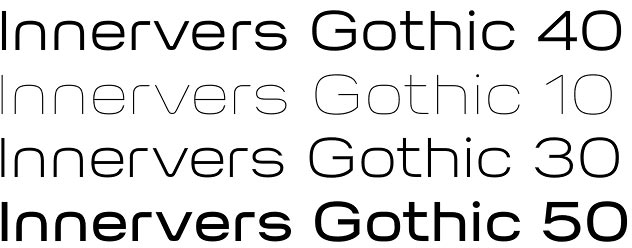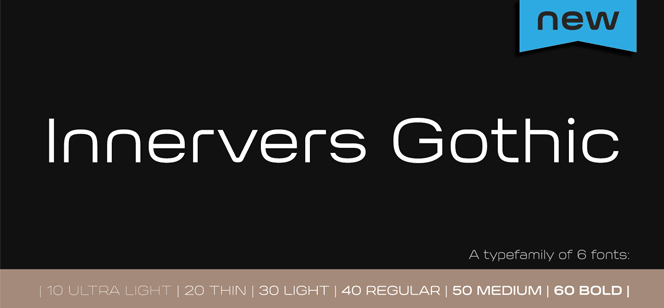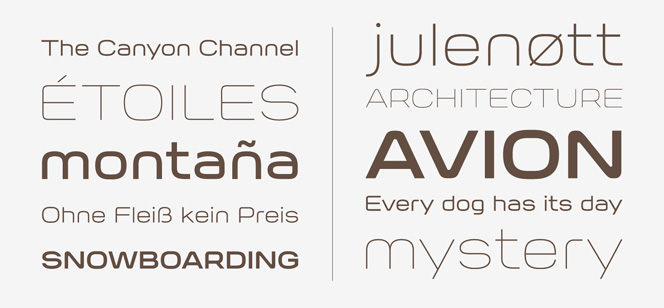
Innervers Gothic
Innervers Gothic by the Serbian type designer Svetlana Usljebrka is a type family of six low-contrast monoline superelliptical Sans Serif fonts featuring Grotesk and geometric morphology. The letters are constructed with large width, smooth elegant junctions and tall x-height. The overall impression is of a contemporary, classy, organic and futuristic outlook. Innervers Gothic font family offers six weights: 10 Ultra Light, 20 Thin, 30 Light, 40 Regular, 50 Medium and 60 Bold. Perfect for display uses like magazines, logo and ads, while legible in small text sizes, too.
Innervers Gothic typeface provides standard OpenType options like standard ligatures, fractions, proportional/tabular figures, numerators and denominators, as well as superscript and subscript numbers.